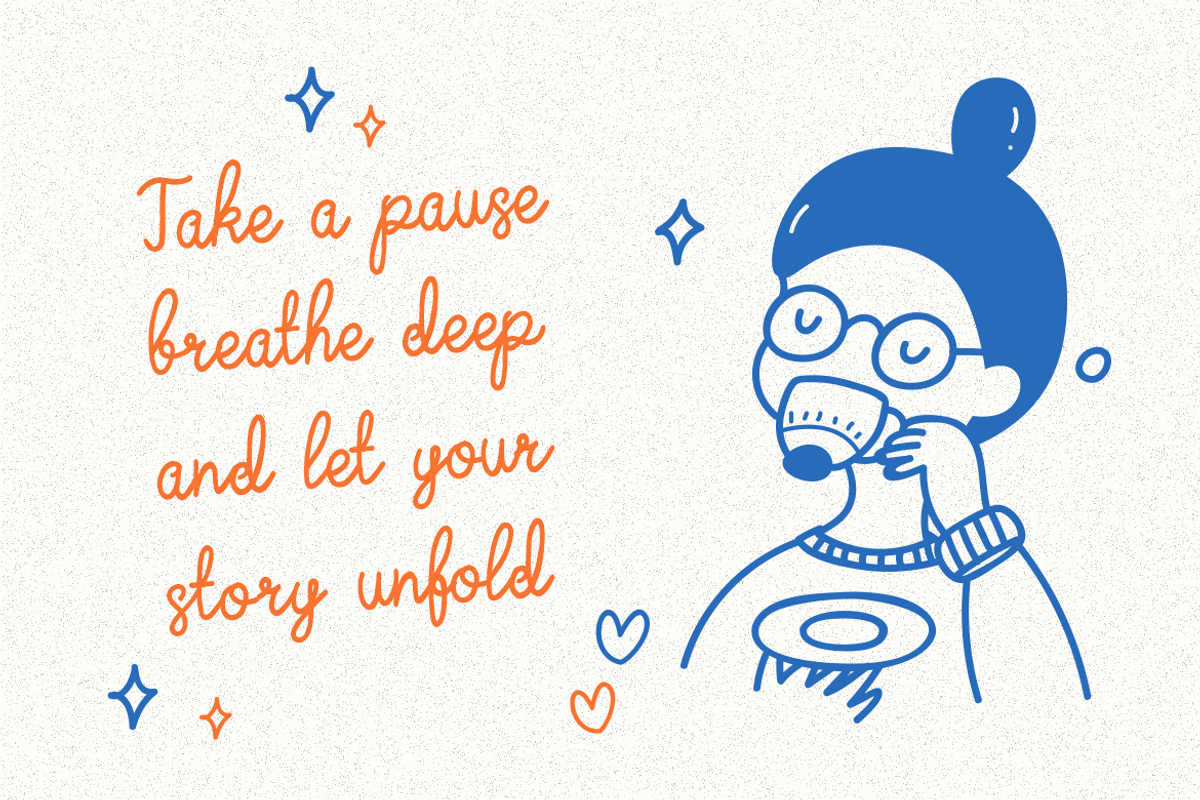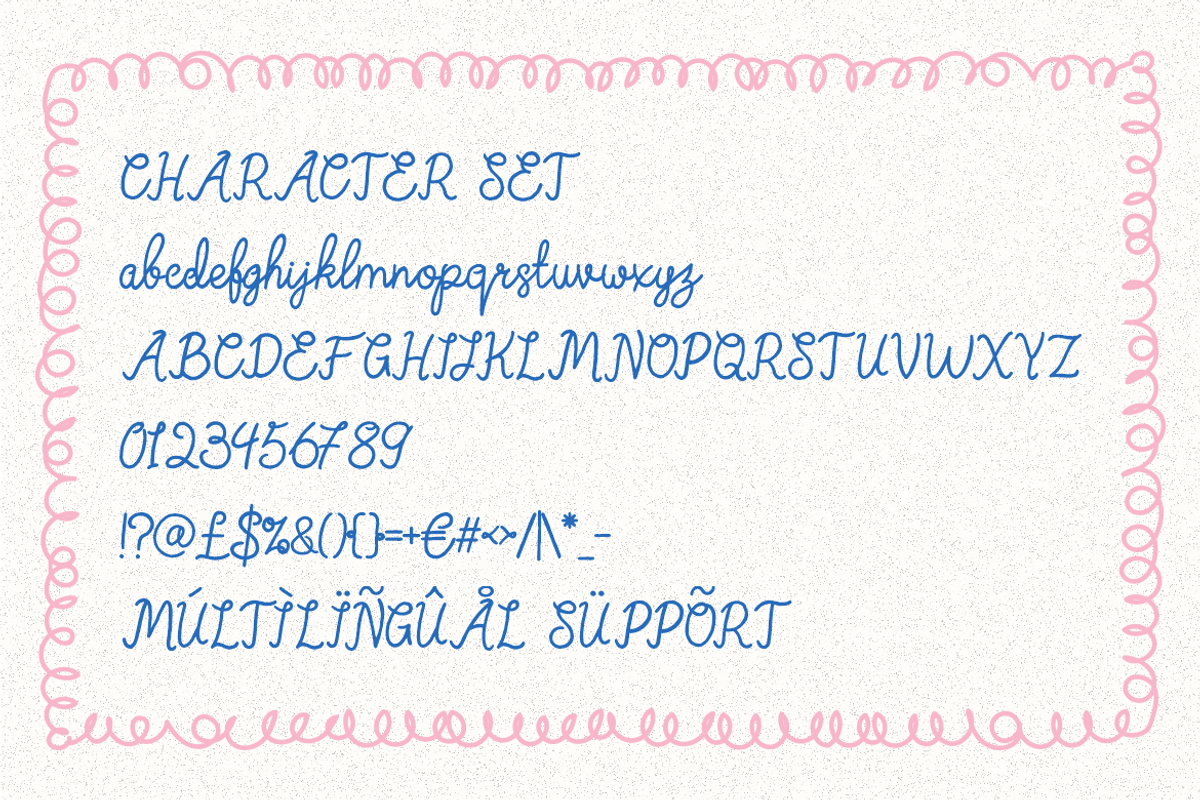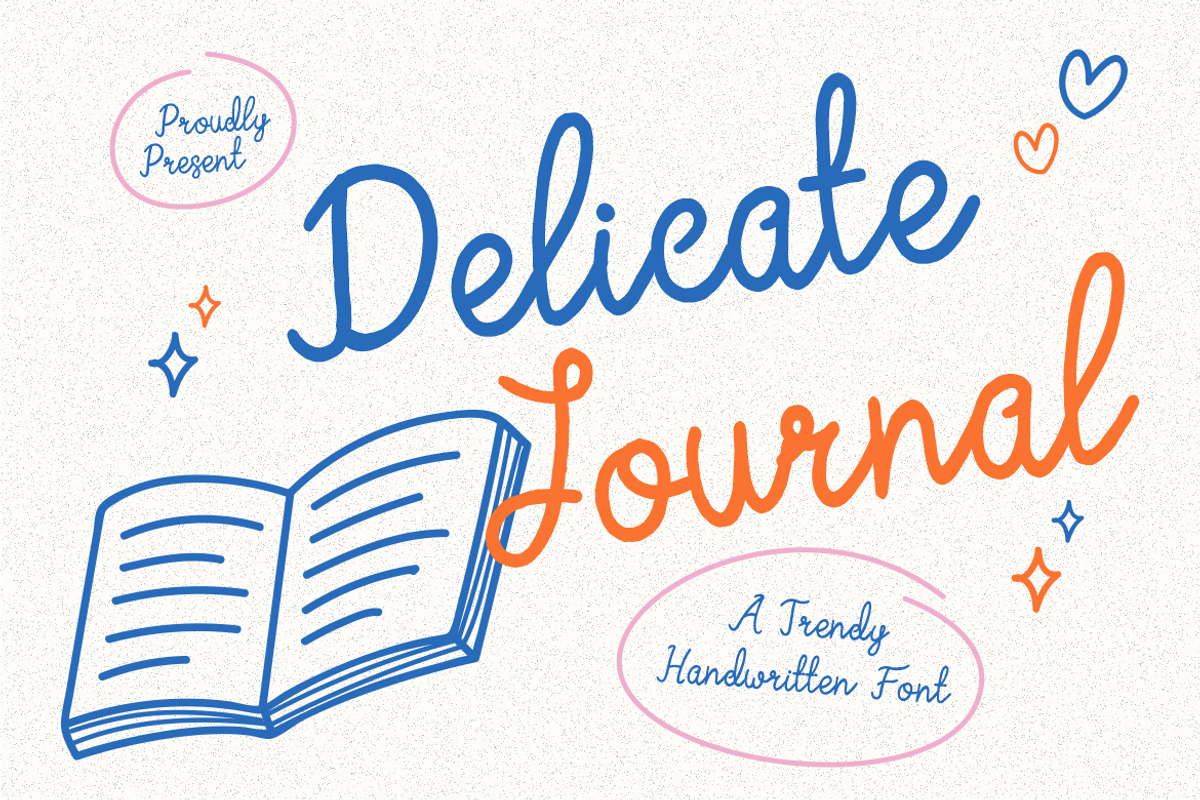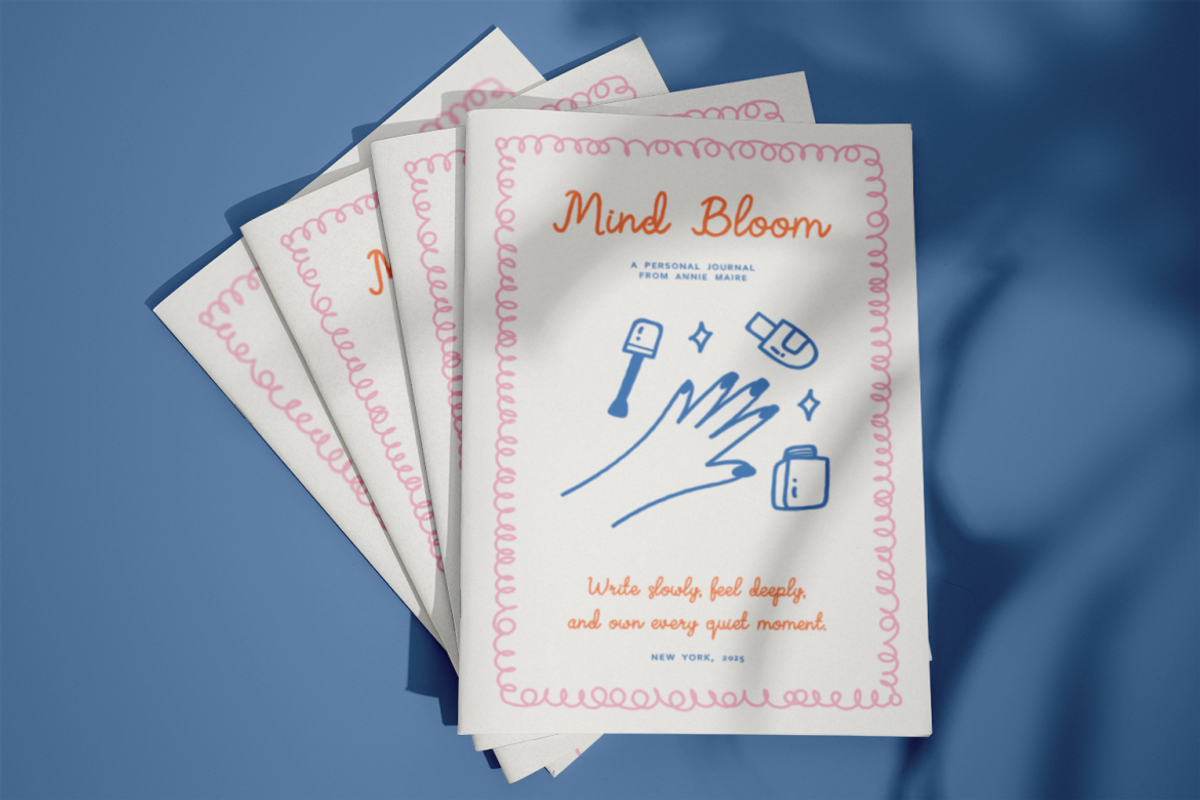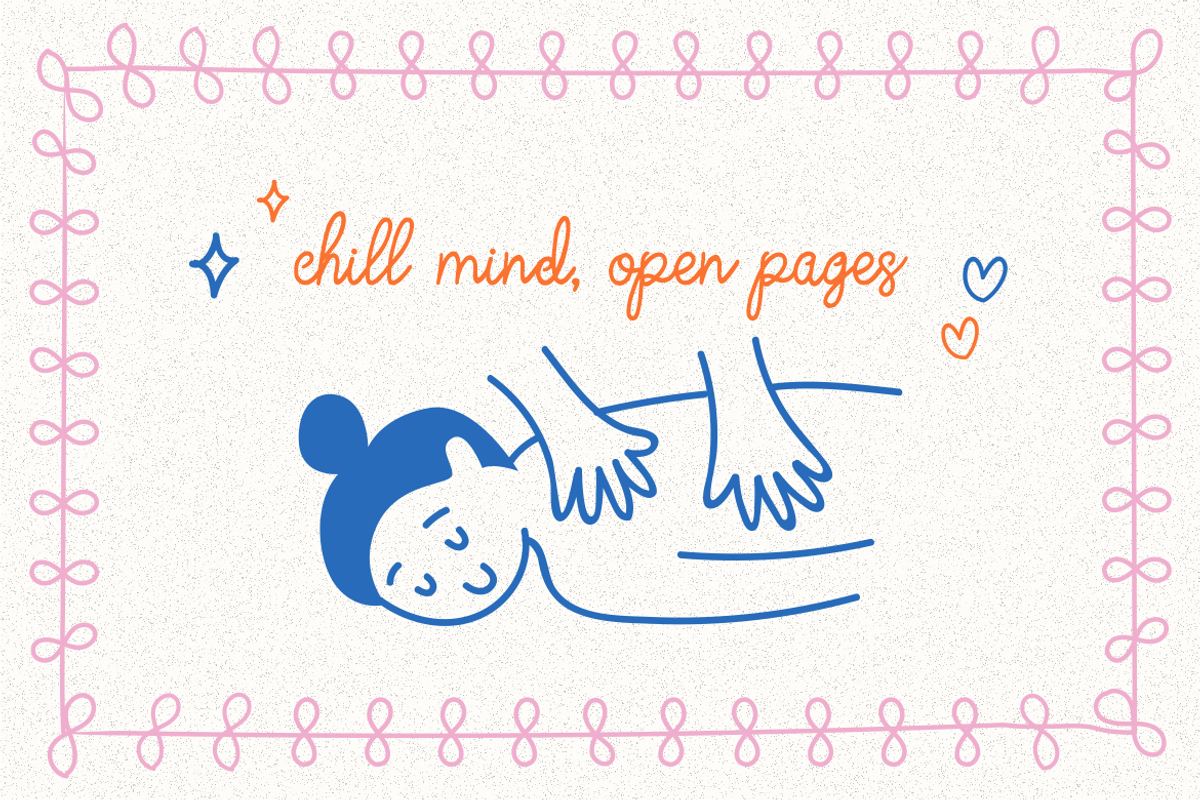
Delicate Journal Trendy Handwritten
Delicate Journal Trendy Handwritten Font captures the essence of modern handwriting with a gentle and expressive touch. Its slim, rounded strokes and slightly uneven baselines create a relaxed and organic rhythm that feels personal and inviting. The medium height and balanced spacing enhance readability, while the cursive connections bring fluid motion to every letter. Designed with smooth curves and friendly shapes, Delicate Journal Trendy Handwritten Font delivers a cozy handwritten charm that blends professionalism with warmth. This makes it a go-to font for creators who love designs that feel both intimate and fashionable.
Perfect for logos, personal brands, greeting cards, and packaging, this font adds an emotional and friendly vibe to your projects. It’s also ideal for journal covers, social media quotes, posters, or lifestyle-themed designs that seek authenticity and softness. The handwritten texture evokes creativity, mindfulness, and calm inspiration, suitable for self-care brands, stationery, or editorial projects. Delicate Journal Trendy Handwritten Font invites every designer to express words with elegance and sincerity, turning each layout into a heartfelt visual story. With its flowing rhythm and graceful form, it’s a must-have typeface for anyone who loves delicate creativity.